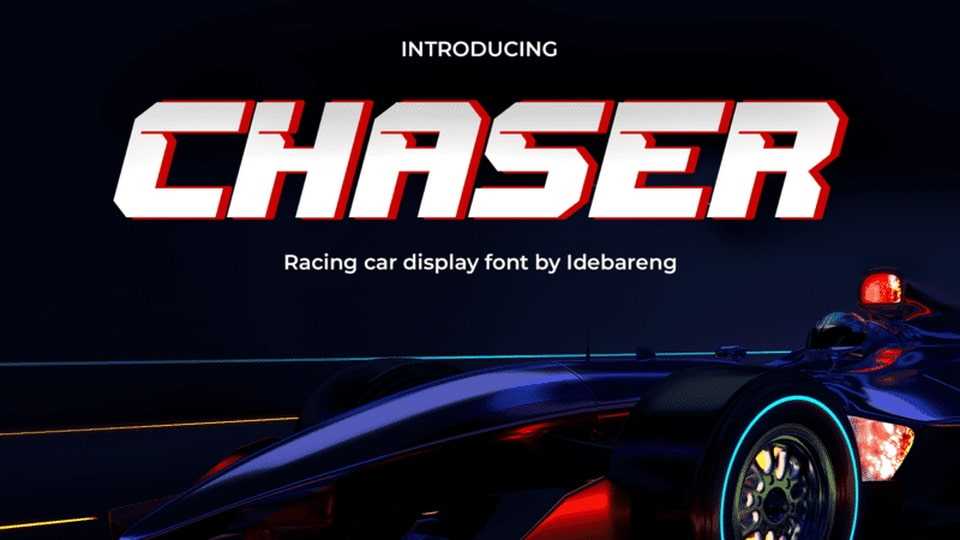
Download Chaser font, the racing car display typeface that brings the speed and energy of the racetrack to your design projects. Chaser, modern and dynamic font is perfect for any racing or automotive-themed project.
Designer: IDEBARENG